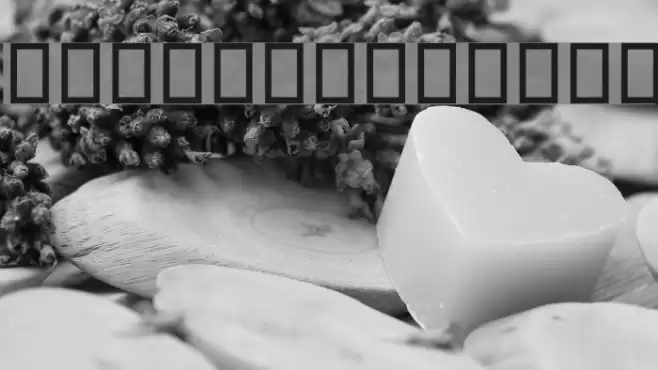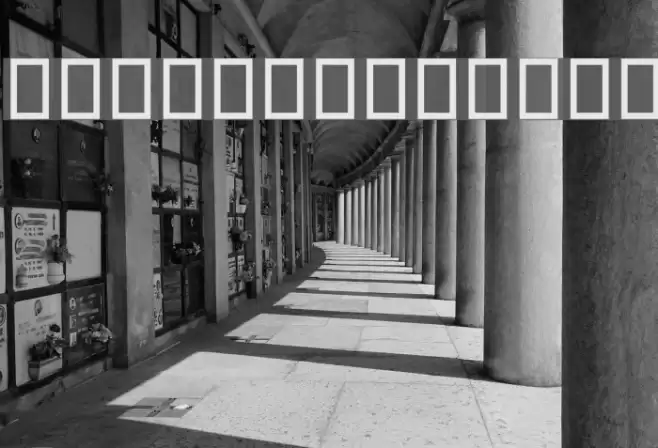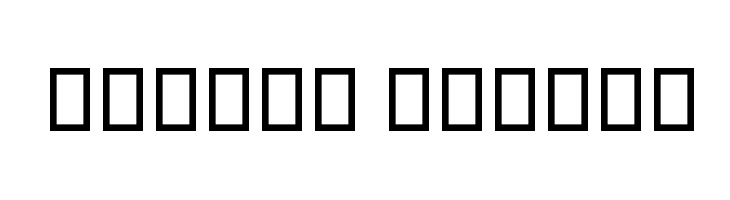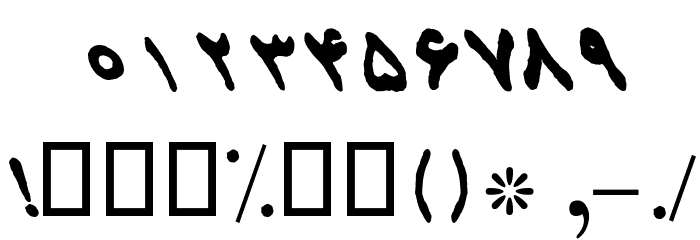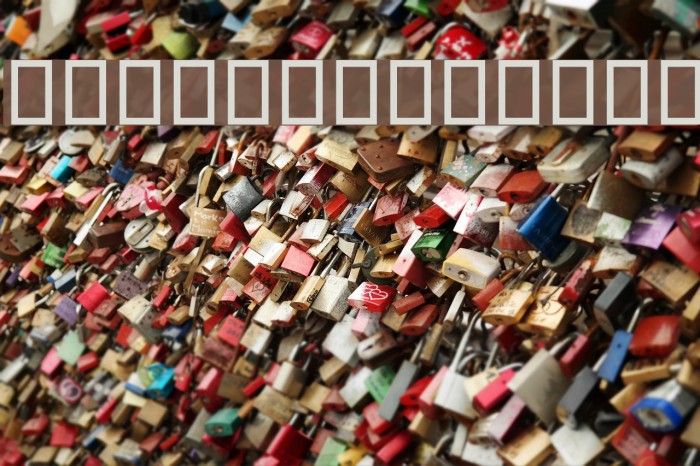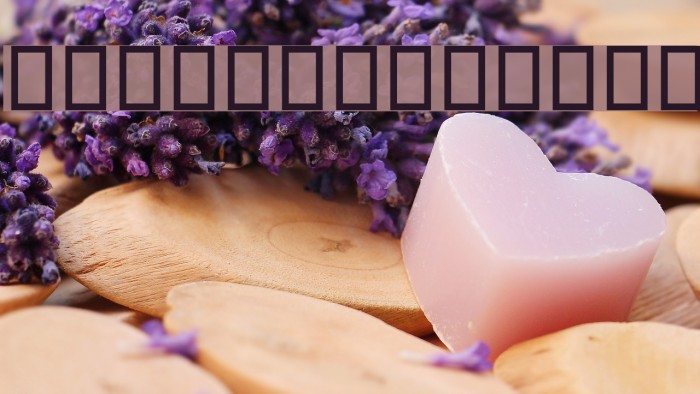
Ketaab Italic Font
Ketaab Italic Description
This font features a unique and artistic style with a handwritten appearance. The characters are fluid and dynamic, showcasing a distinct italic slant that adds a sense of movement and elegance. The numbers are particularly stylized, with each digit having its own flair, contributing to the overall aesthetic. The special characters maintain the same artistic quality, ensuring consistency throughout the font. This font's design is both creative and functional, making it suitable for various artistic and professional applications.
A dynamic, italic handwritten font with artistic flair from Uncategorized fonts.
- Proposed Projects: Ideal for creative projects such as invitations, greeting cards, artistic posters, and branding materials that require a personal touch.
- Overall Style: Artistic
- Use Case: Logos, Invitations, Artistic projects